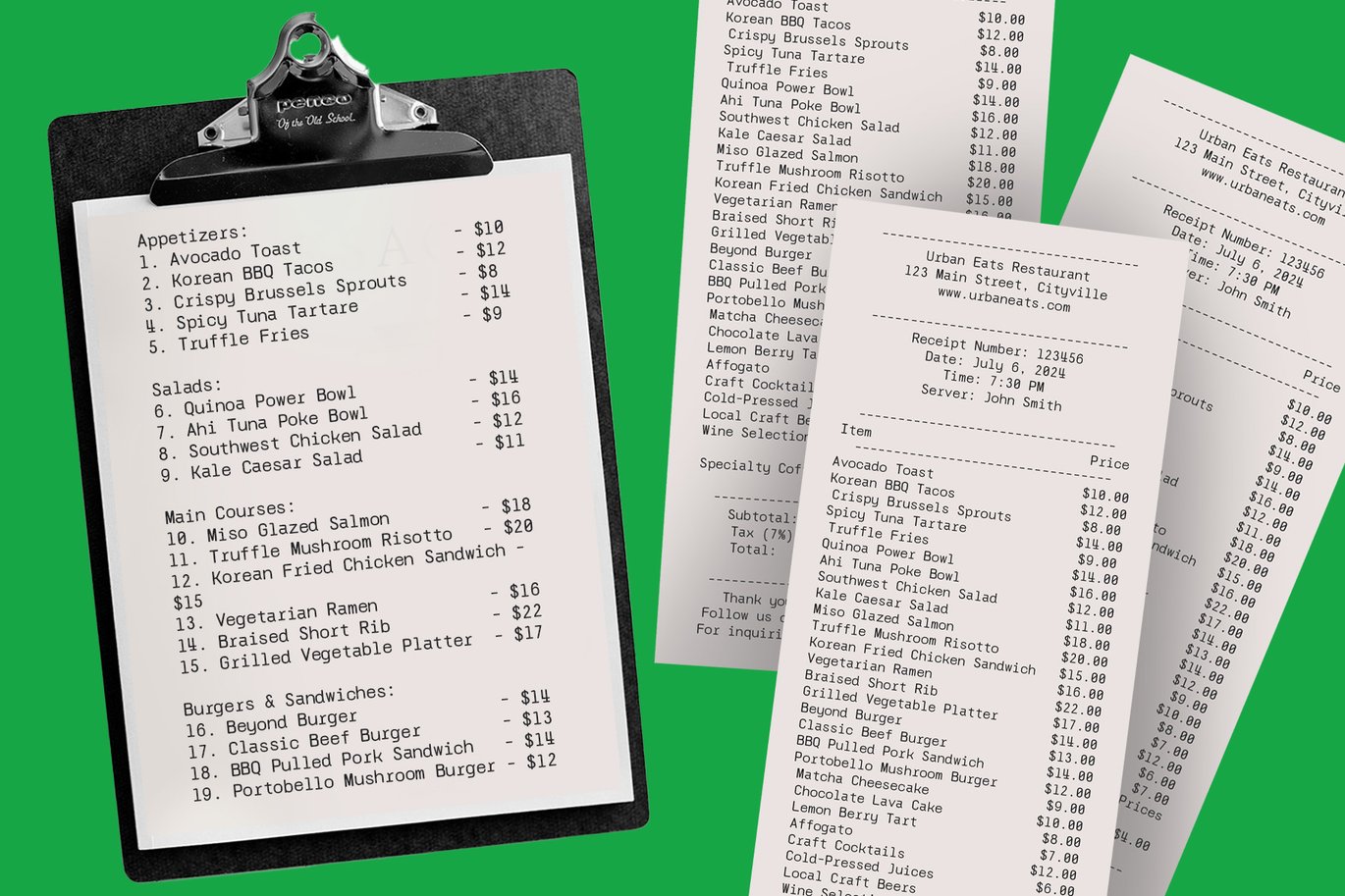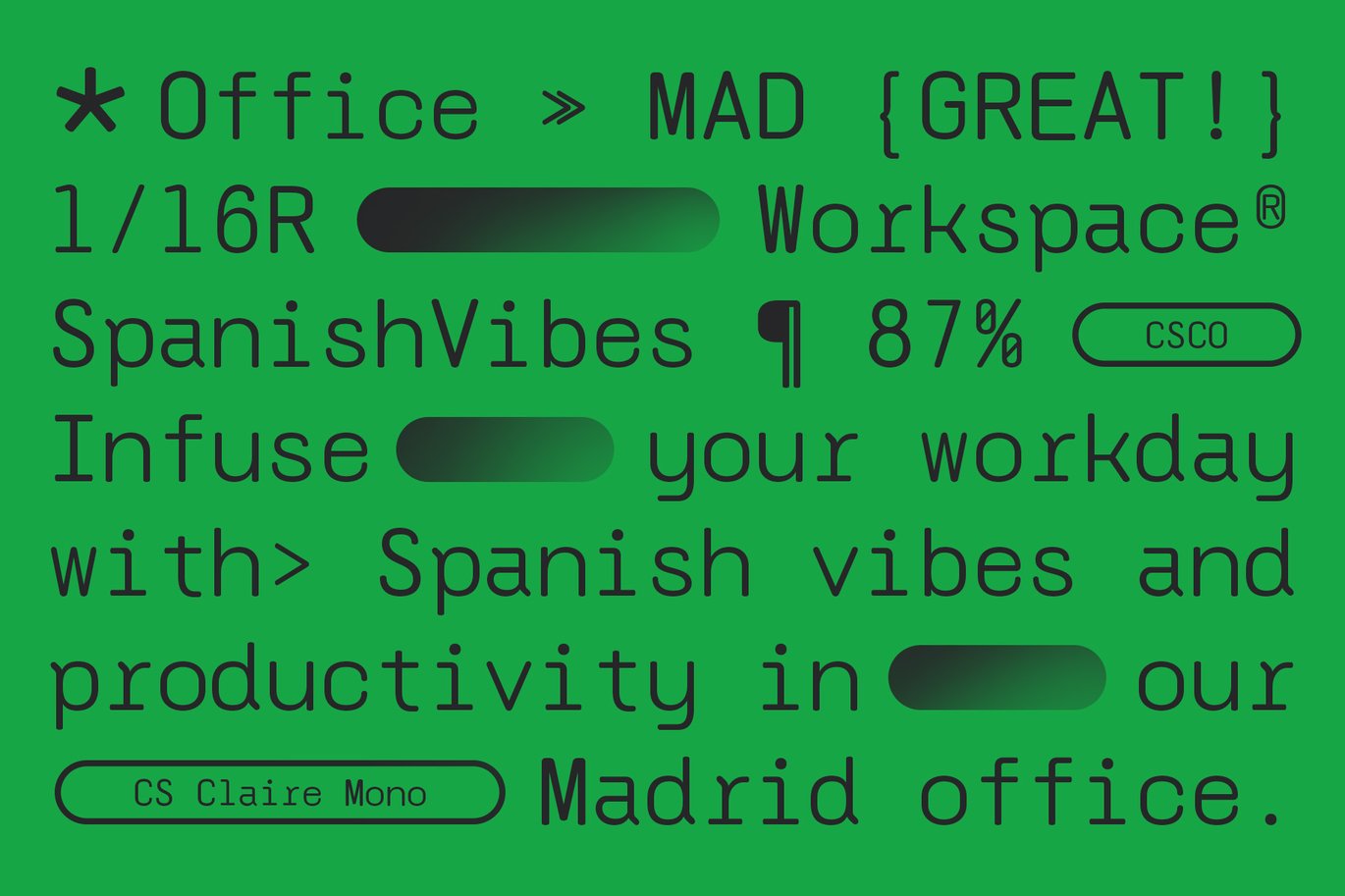
CS Claire Mono – Monospaced Typeface Font
CS Claire Mono – Monospaced Typeface Font is a versatile typeface ideal for various projects, including logos, branding, posters, blog headers, advertisements. The free version includes a full set of uppercase and lowercase letters, available in OTF format.